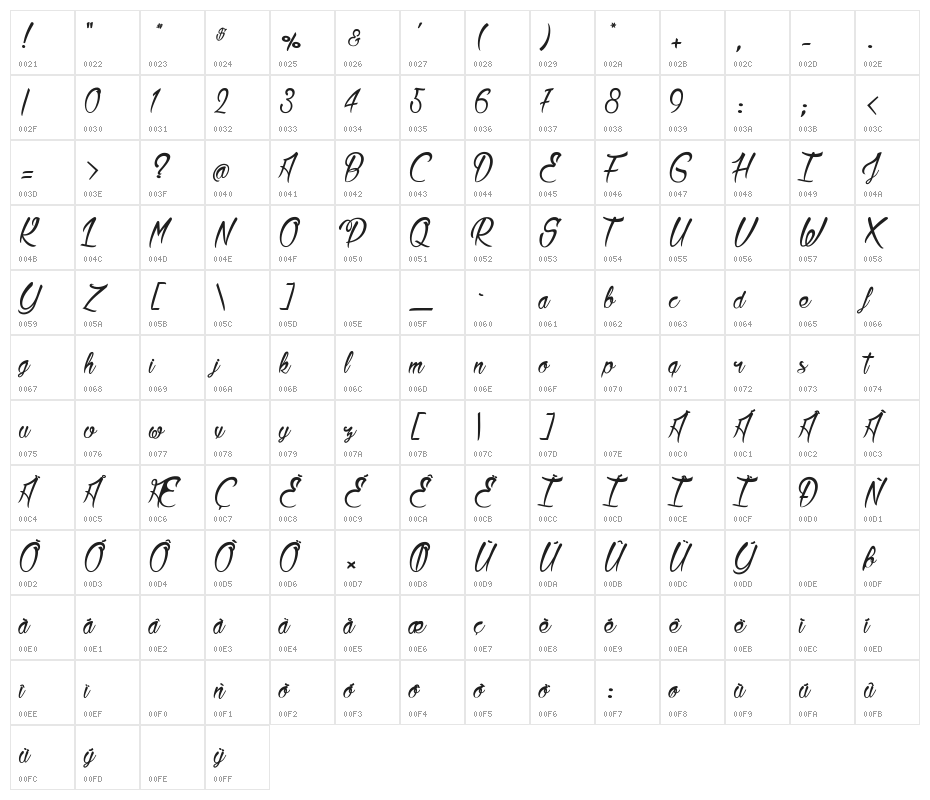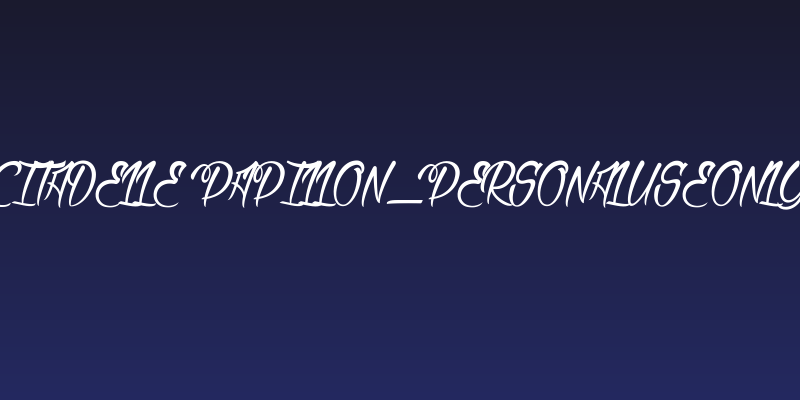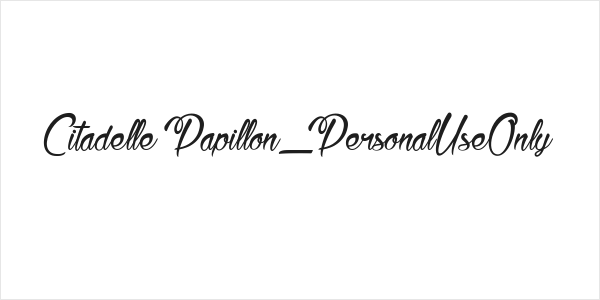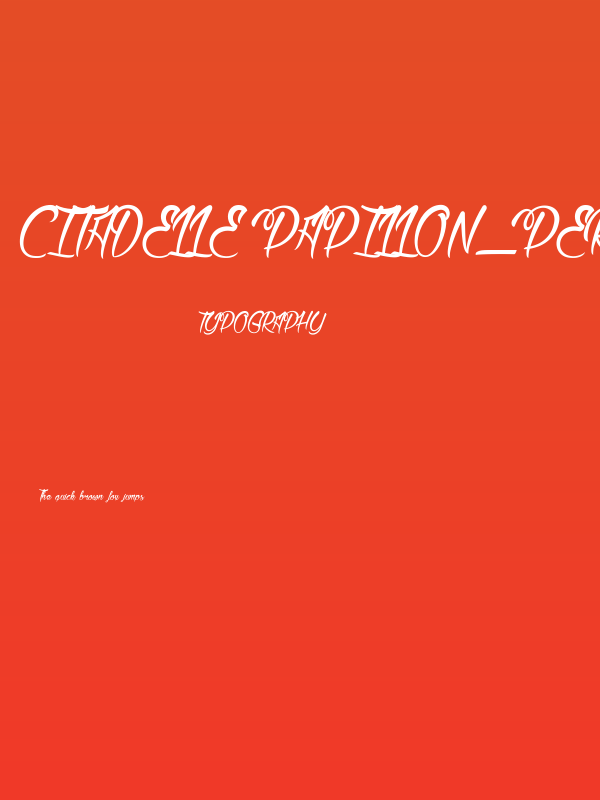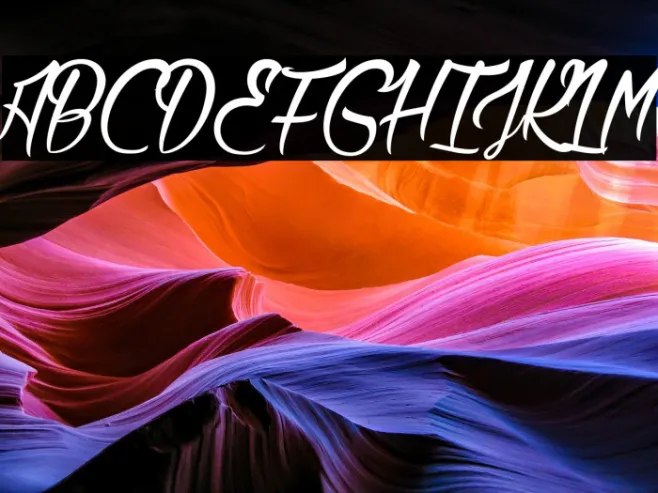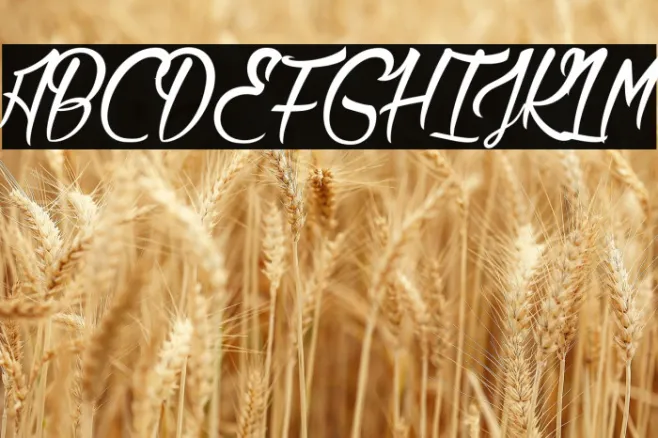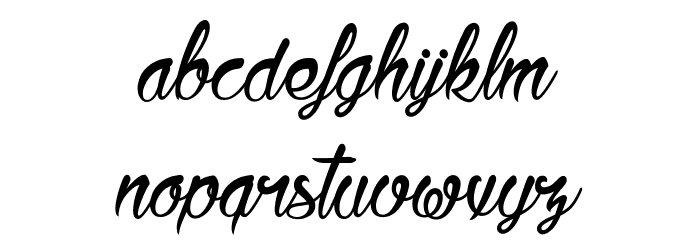
Citadelle Papillon_PersonalUseOnly Font
Citadelle Papillon_PersonalUseOnly Description
This font features an elegant, flowing script style that mimics the fluidity of handwriting. The characters are connected in a cursive manner, with a graceful and artistic flair that adds a touch of sophistication. The uppercase letters are bold and sweeping, while the lowercase letters maintain a consistent flow, enhancing readability. The numerals and special characters are designed to match the overall aesthetic, providing a cohesive look. This font is ideal for projects that require a personal, handwritten touch, such as invitations, greeting cards, or branding materials.
| Proposed Projects | Ideal for wedding invitations, greeting cards, personal branding, and artistic projects. |